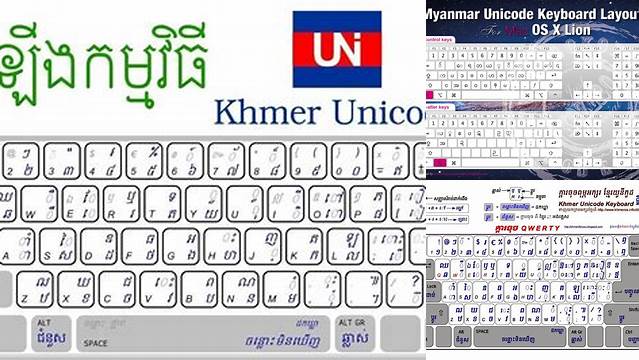
Best Khmer Unicode Fonts For Mac: A Complete Guide
Are you looking for the best Khmer Unicode fonts for your Mac? You've come to the right place! In this comprehensive guide, we'll dive deep into the world of Khmer fonts, specifically tailored for macOS users. We'll explore why using the correct fonts is crucial for displaying Khmer script accurately, discuss the challenges you might encounter, and, most importantly, provide you with a curated list of top-notch fonts and detailed instructions on how to install and use them. So, let's get started, guys, and make sure your Khmer text looks absolutely perfect on your Mac!
Why Proper Khmer Unicode Fonts Matter on Your Mac
Displaying the Khmer script correctly on your Mac requires the right Khmer Unicode fonts. Unlike the Roman alphabet, Khmer script is complex, featuring numerous intricate characters, diacritics, and ligatures. If you don't have a compatible font, you might see boxes, question marks, or garbled text instead of the beautiful Khmer script. This isn't just an aesthetic issue; it can significantly impact readability and comprehension. Imagine trying to read a crucial document or an important email where half the characters are missing or jumbled up! That's why selecting and installing the correct Khmer Unicode fonts is paramount for anyone working with the Khmer language on their Mac.
The importance of proper font display goes beyond personal use. In professional settings, such as publishing, graphic design, and web development, accuracy is absolutely crucial. Using incorrect fonts can lead to miscommunication, errors in published materials, and an unprofessional appearance. Think about a website for a Cambodian cultural center where the Khmer text is poorly rendered. It wouldn't exactly inspire confidence, would it? So, for businesses and organizations catering to Khmer speakers, having the right fonts is a matter of credibility and professionalism.
Furthermore, accessibility is a key consideration. People with visual impairments who rely on screen readers to access digital content need well-formed text. If the Khmer Unicode fonts are improperly encoded or rendered, screen readers might not be able to interpret the text correctly, making it inaccessible to these users. By using the correct fonts, you ensure that your content is inclusive and accessible to everyone. It's not just about making things look good; it's about making information available to all.
In essence, the selection of Khmer Unicode fonts is a critical step in ensuring accurate display, professional communication, and accessibility for Khmer content on your Mac. It's an investment in clarity, precision, and inclusivity. So, take the time to choose the right fonts, and you'll be well on your way to creating and consuming Khmer text seamlessly on your Mac. We are going to help you to find the best fonts, so keep reading.
One of the primary hurdles is ensuring that the font you're downloading is truly Unicode compliant. Unicode is the international standard for encoding characters, and it's essential for displaying Khmer script correctly across different platforms and applications. If a font isn't fully Unicode compliant, you might encounter compatibility issues, where the text looks fine on your Mac but appears garbled on another device or in a different program. This can be a major headache, especially if you're collaborating with others or sharing documents across different operating systems. So, always double-check the font's specifications to ensure it adheres to the Unicode standard.
Another challenge is the sheer variety of Khmer fonts available. With so many options to choose from, it can be difficult to know which ones are high-quality and which ones aren't. Some fonts might have incomplete character sets, meaning they don't include all the necessary Khmer characters and diacritics. Others might have inconsistent character spacing or other design flaws that make the text look awkward or difficult to read. It's like trying to pick the best apple from a basket of mixed fruit β you need to know what to look for!
The installation process itself can also be a source of confusion for some users. While macOS makes it relatively easy to install fonts, there are a few potential pitfalls to watch out for. For example, you need to make sure you're installing the font in the correct location (either for all users or just your account), and you might need to restart your applications to see the new fonts appear in the font menus. It's not rocket science, but a little guidance can go a long way. That is why we created this guide for you!
Finally, licensing issues can sometimes be a concern. Some Khmer fonts are free to use, while others require a commercial license. If you're using fonts for commercial purposes, such as in a logo or a published document, you need to make sure you have the appropriate license to avoid legal problems. It's always best to err on the side of caution and check the font's licensing terms before using it in a project. Navigating these challenges requires a bit of research and careful attention to detail. But don't worry, in the next sections, we'll provide you with a curated list of recommended fonts and step-by-step instructions to make the process as smooth as possible.
So, there you have it, guys! A comprehensive guide to Khmer Unicode fonts for your Mac. We've covered everything from why proper fonts matter to how to install and troubleshoot them. By now, you should have a solid understanding of how to get the most out of Khmer fonts on your macOS system. We encourage you to explore the fonts we've recommended, experiment with different styles, and find the ones that perfectly match your needs and preferences. Remember, clear and accurate Khmer text is essential for effective communication, whether you're writing a personal email, creating professional documents, or designing a website. With the right fonts and a little bit of know-how, you can ensure that your Khmer text always looks its best. Happy writing and designing!